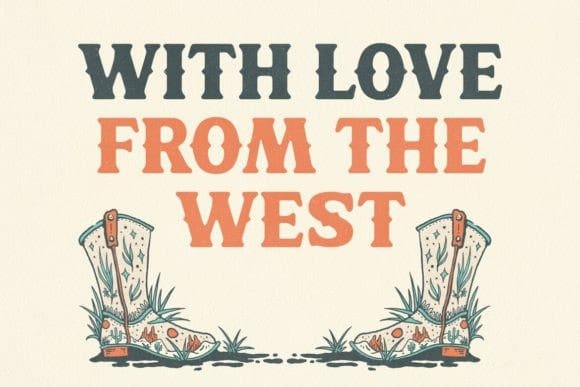
Horse Saguaro Font
Horse Saguaro Font is a Vintage typeface font, it will add an old-rustic charm to any design project. This collection of font is perfect for everything your project with vintage, retro, wild or organic style. It was made with the intention of being used for product Logo like a Pomade, Coffee, Barber shop or packaging label. It’s great also for Branding, Logo designs, Lettering, Logotype, Craft, Posters and much more. Comes with a full Uppercase, Numbers, Punctuation and standard Multilingual support it’s going to be a very usable addition to your project.